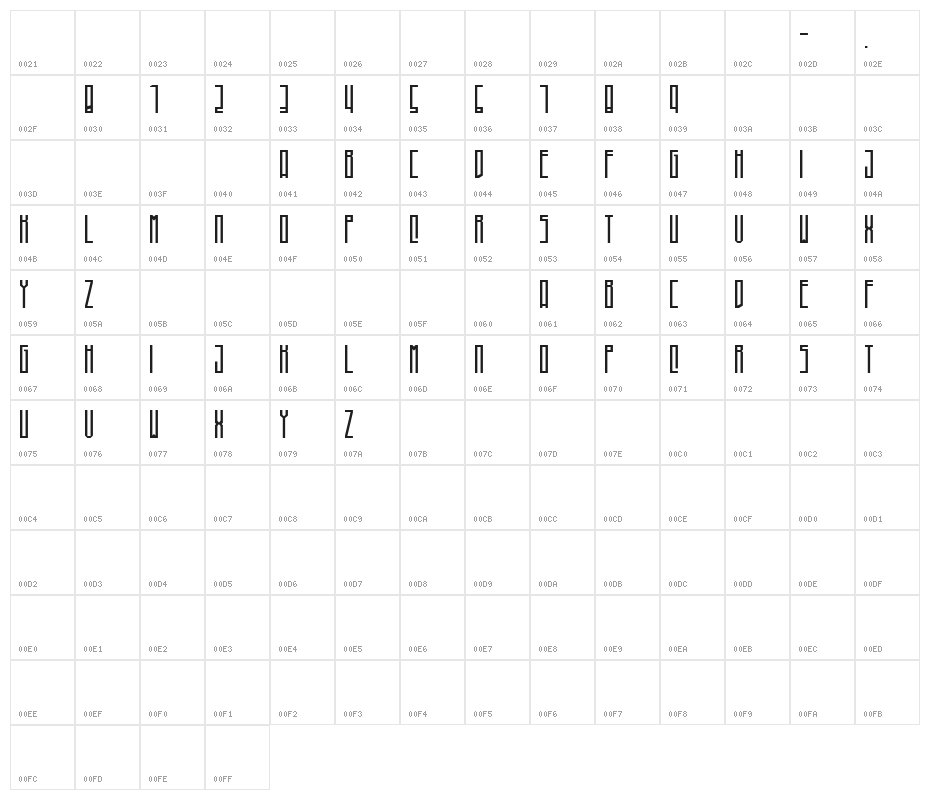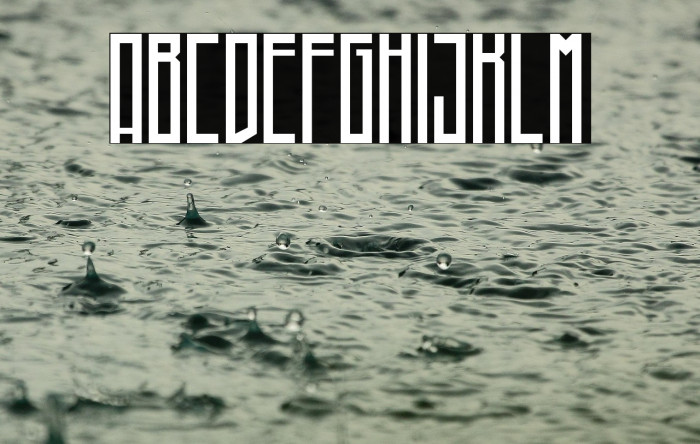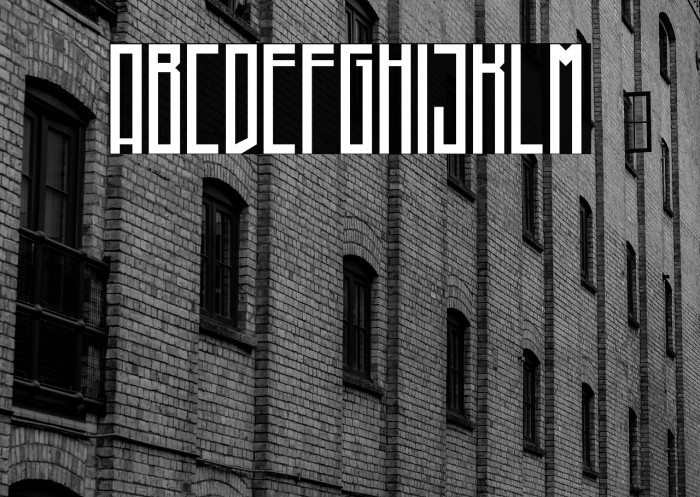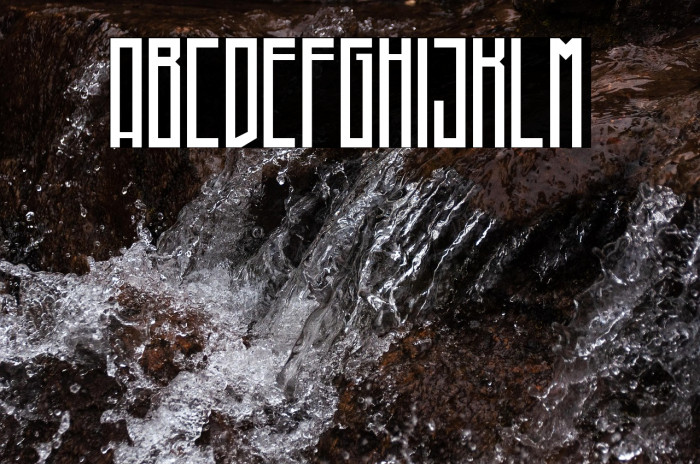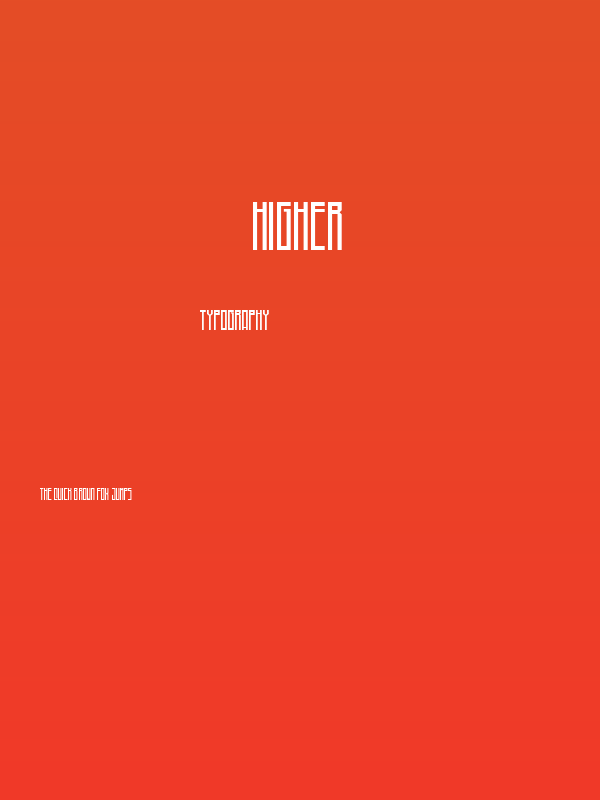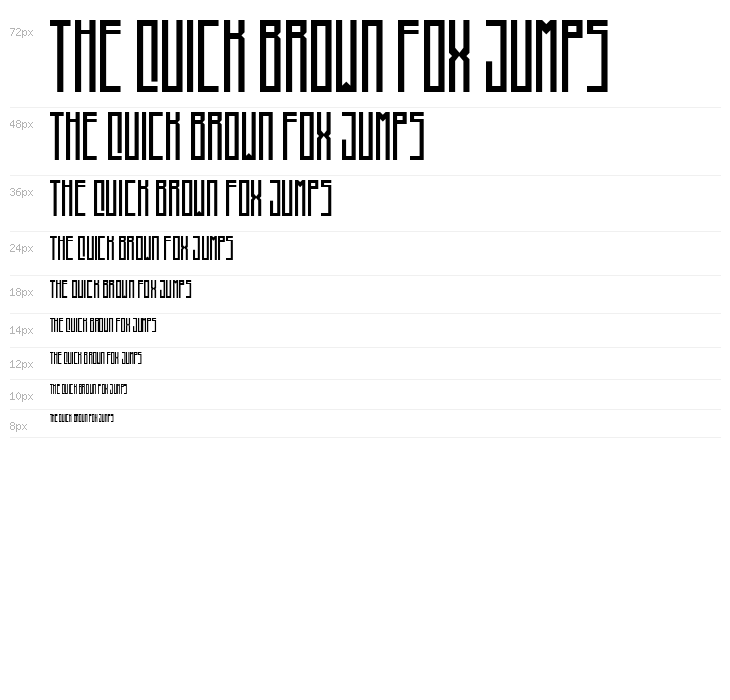
Higher Font
Higher Description
This font features a geometric and angular design, characterized by its tall and narrow letterforms. The strokes are consistent in width, giving it a monospaced appearance, although it is not strictly monospaced. The uppercase and lowercase letters share a similar height, creating a uniform look. The font has a futuristic and modern aesthetic, with sharp edges and a clean, minimalistic style. It is highly legible due to its clear and distinct shapes, making it suitable for various design applications.